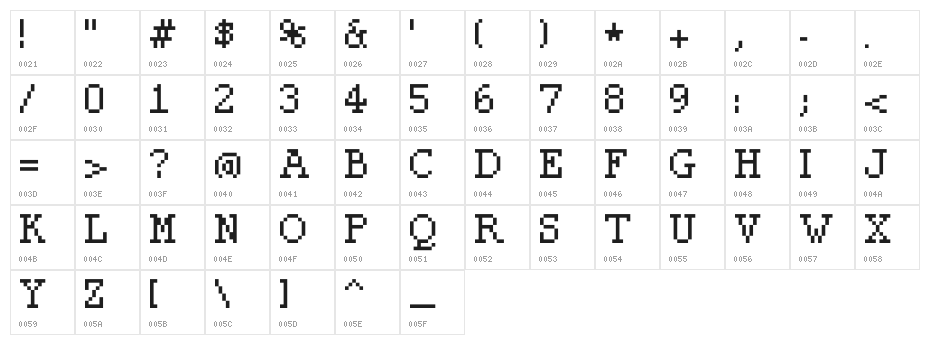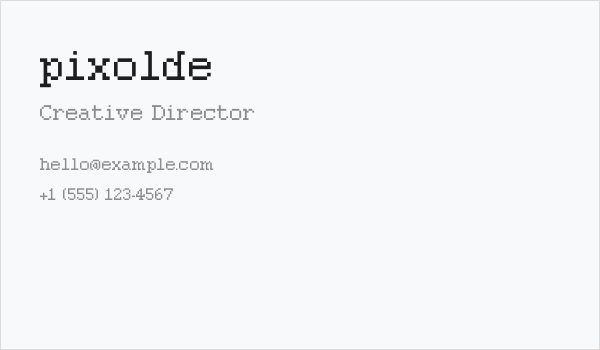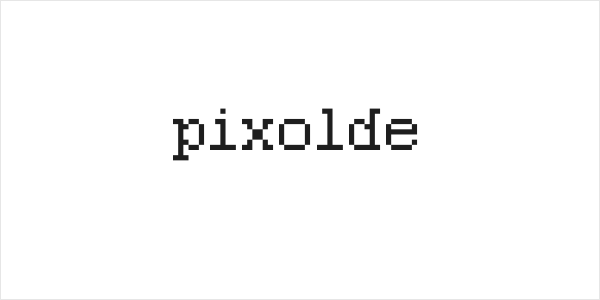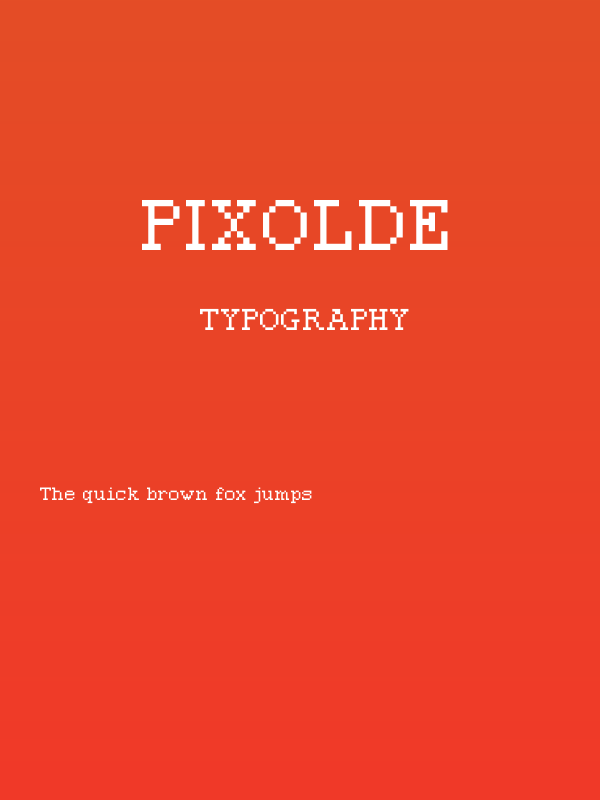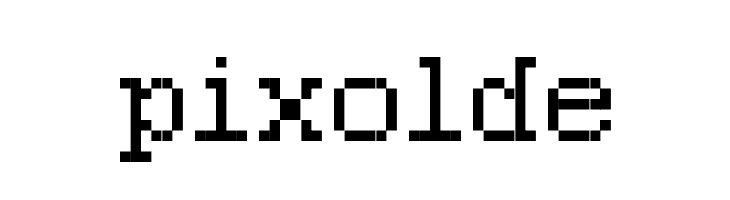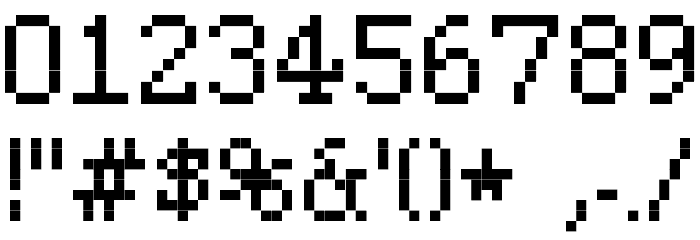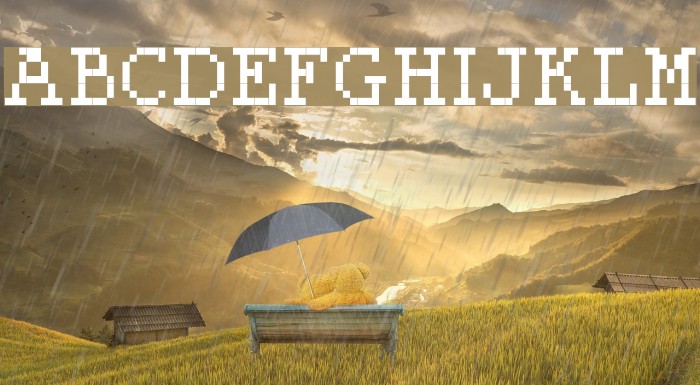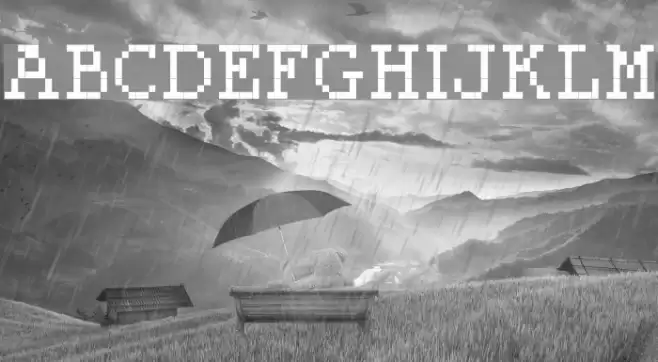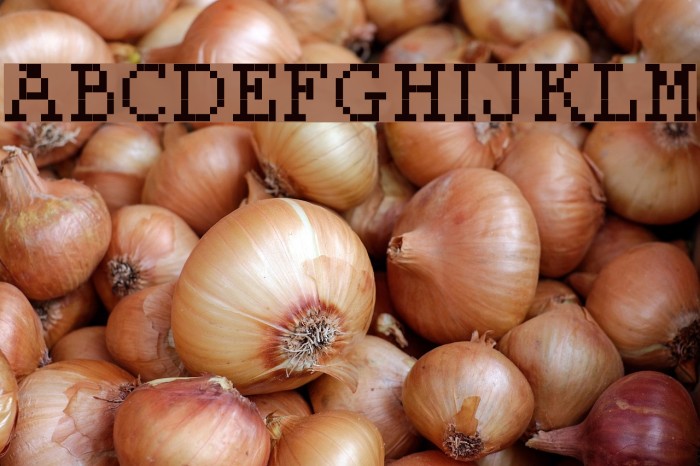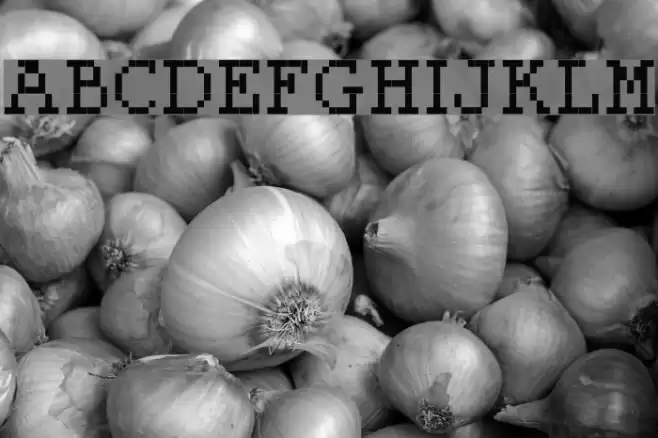
pixolde Font
| समग्र शैली | Vintage |
| उपयोग का मामला | Headlines, Logos, Digital Art |
| सुझाए गए प्रोजेक्ट | Ideal for retro video game designs, digital art projects, and any creative work seeking a nostalgic or vintage digital aesthetic. |